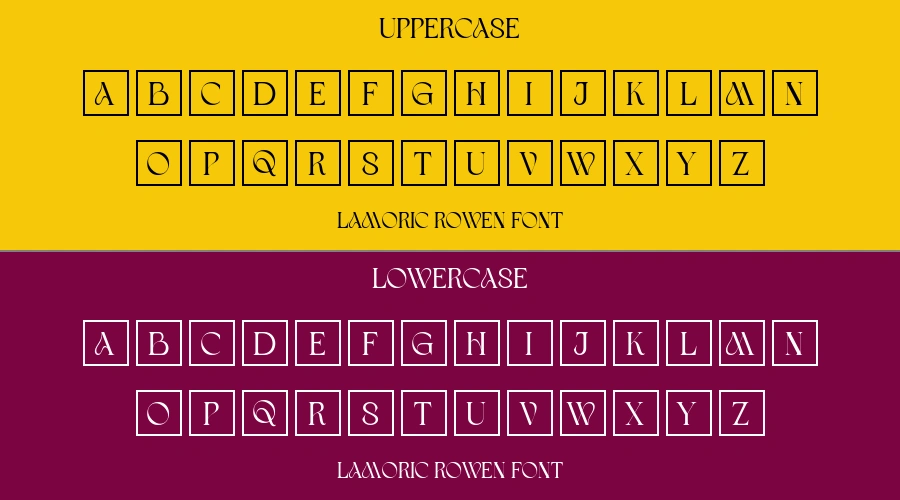
Lamoric Rowen Font embodies typographic excellence through its masterful combination of balanced weights and durability. Created for magazine layout, this typeface delivers exceptional longevity and professional standards across all applications. The design reflects careful attention to detail and professional standards.
Advanced capabilities include distinctive humanist proportions and versatile lining figures, giving designers creative control. When used in campaign headers, Lamoric Rowen Font exhibits remarkable output consistency. The harmonious balance between tail length and technical innovation sets this typeface apart.